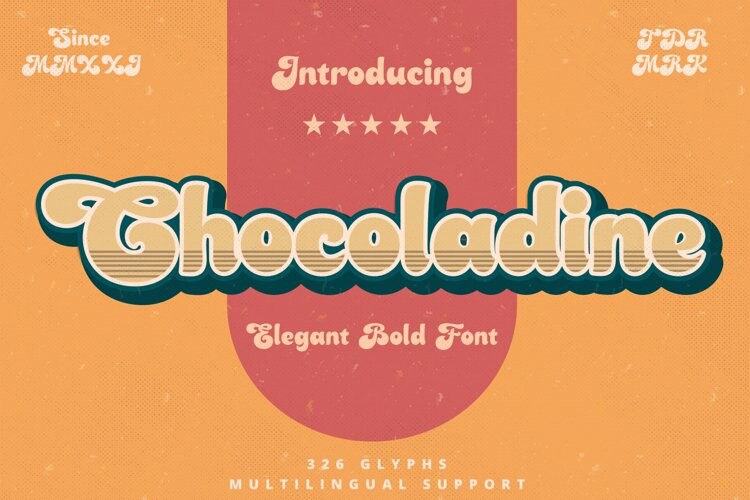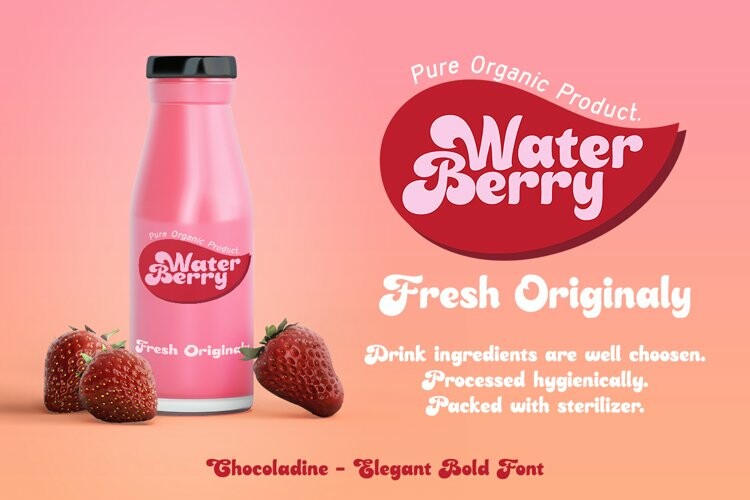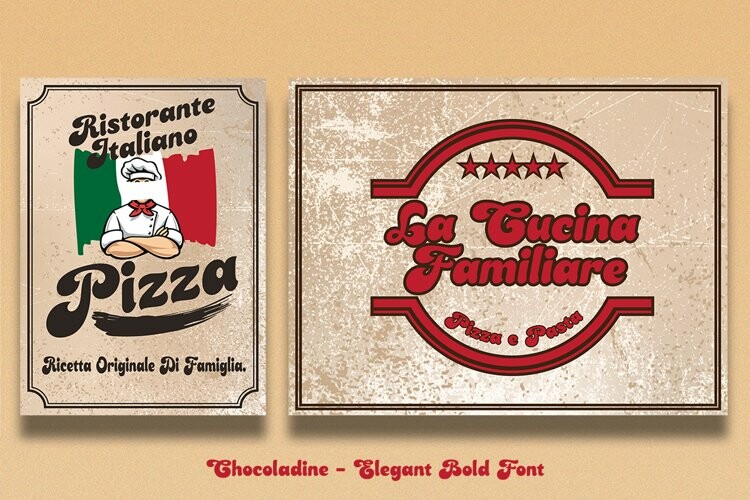
Chocoladine Font
Chocoladine FontChocoladine is inspired by the fern leaves that curl and grow at the tips. In capital letters the shape will appear. This font is also in the retro category which is still popular today. Casual, warm, sweet that’s about it. It is suitable for printing t-shirts, mugs, book covers, invitation, product branding, packaging, advertising, retro logos and many more. Thank you, I hope you enjoy it.